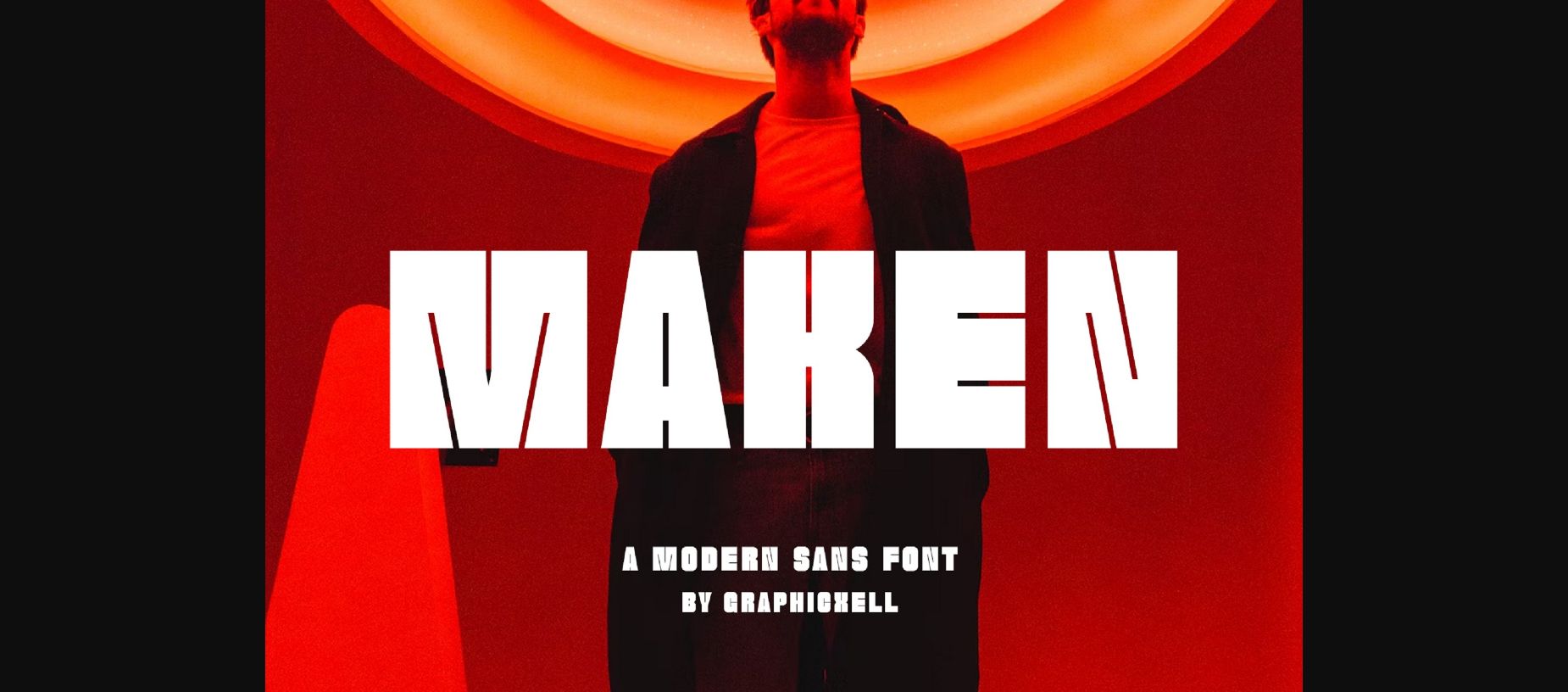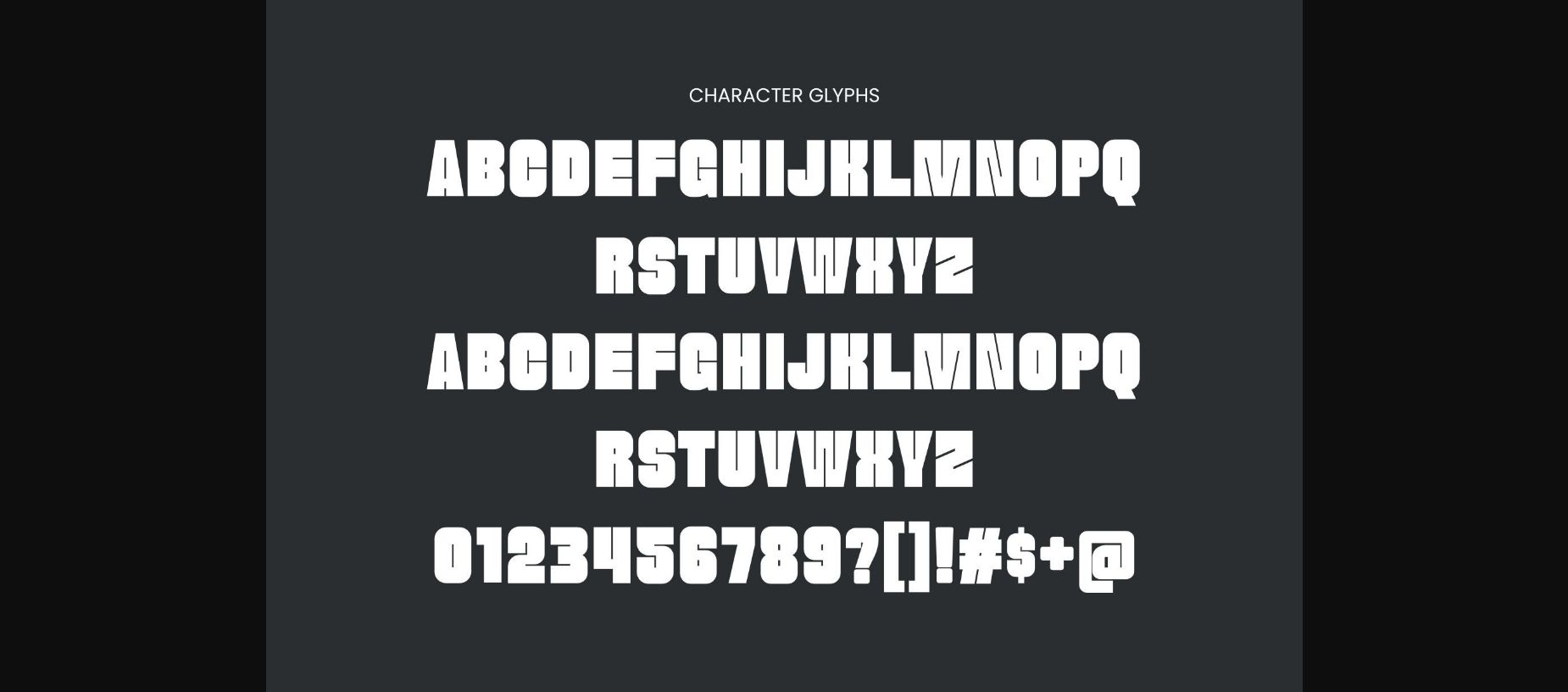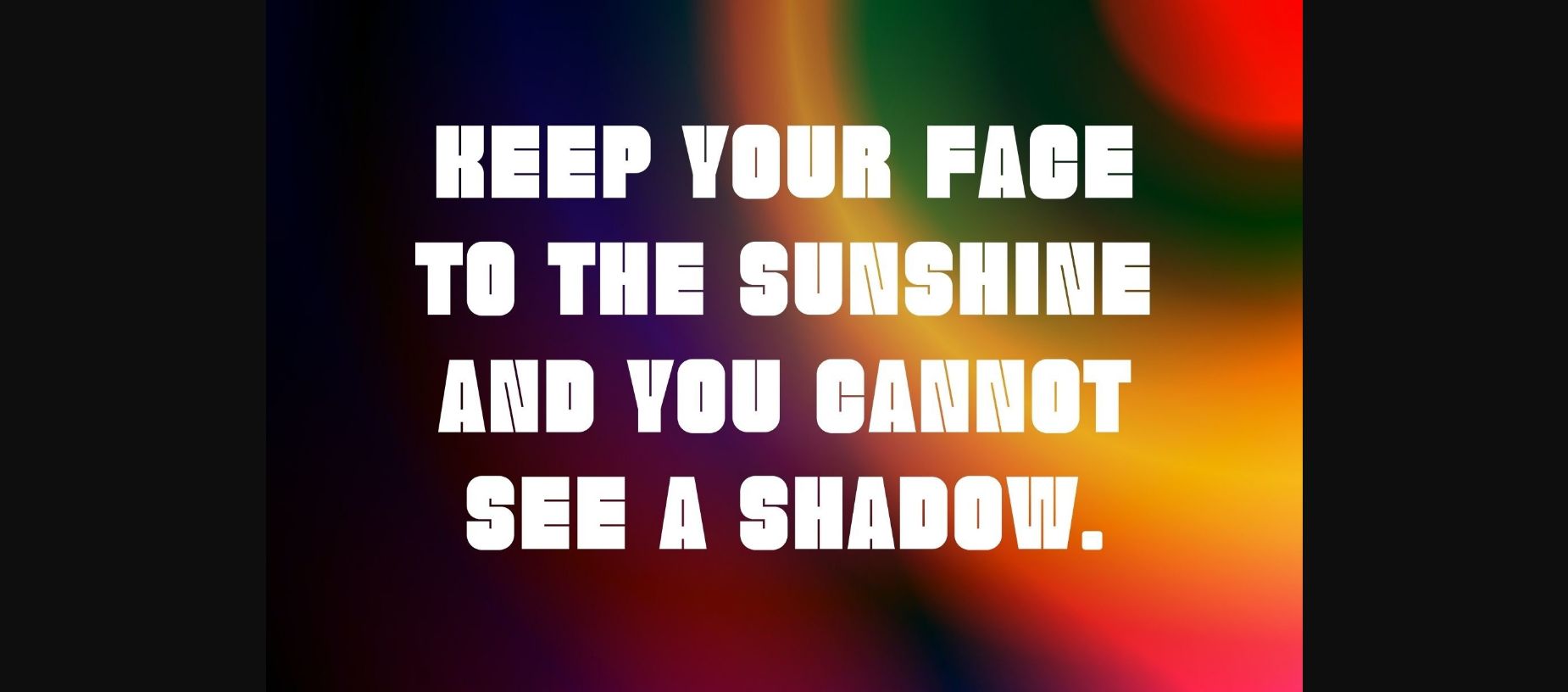
About Maken Font
Maken Milky is a contemporary and eye-catching bold display sans serif font that exudes modernity and confidence. With its clean lines and strong presence, Maken Milky captures attention and adds a touch of sophistication to any design. Its distinct characters and balanced spacing make it ideal for headlines, logos, and striking visual elements that demand a bold and memorable impact.